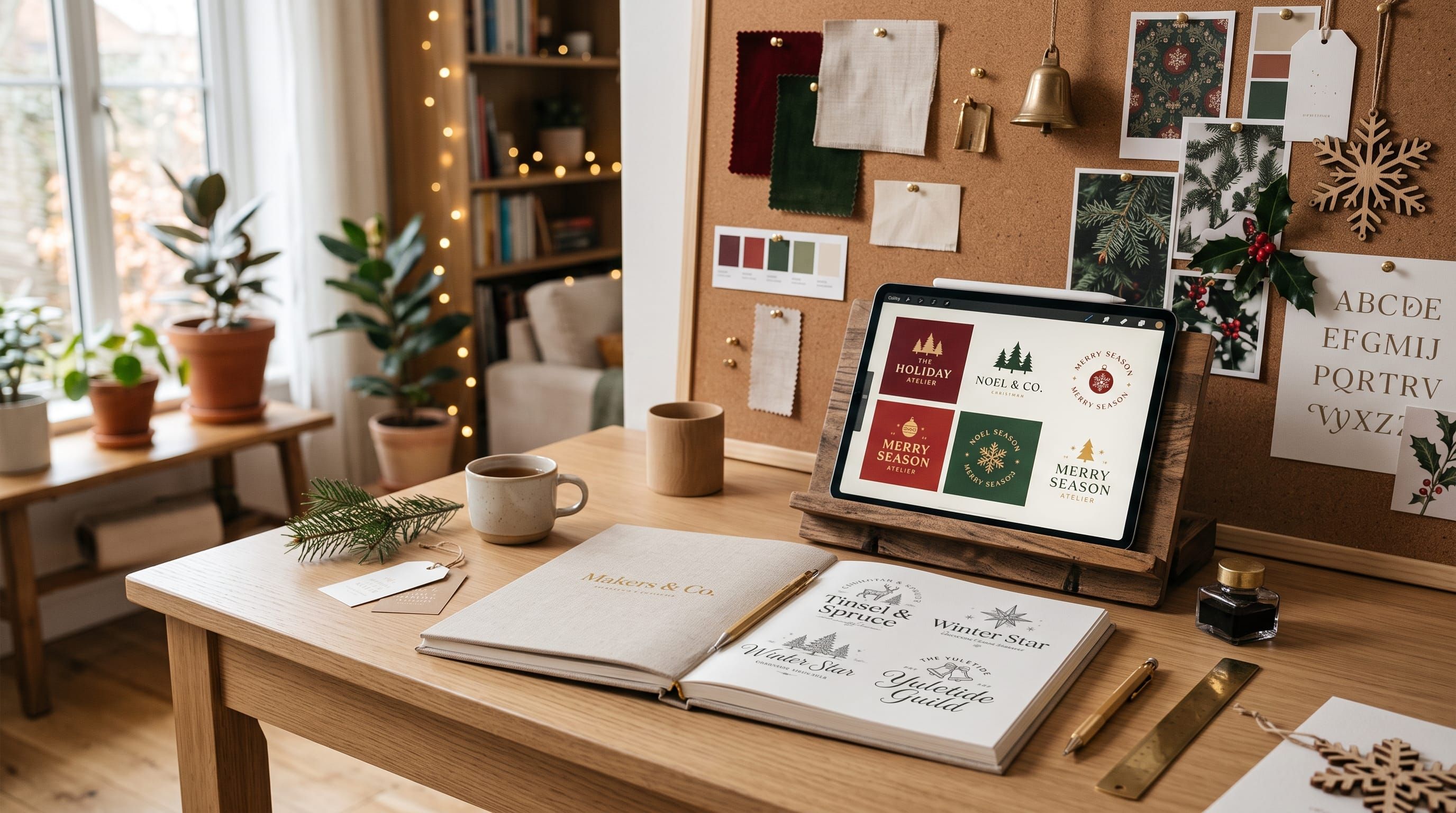
Christmas Logo Design Examples That Inspire Better Branding
A memorable Christmas logo design can instantly capture the warmth, excitement, and festive spirit of the holiday season. Whether you’re refreshing an existing brand, launching a seasonal product, or creating a limited-time holiday campaign, a thoughtfully designed logo helps businesses stand out in one of the busiest shopping periods of the year.
The best Christmas logo design combines recognizable holiday elements with strong branding principles. Instead of completely replacing a company’s identity, successful seasonal logos enhance existing brand recognition through festive colors, seasonal icons, elegant typography, and balanced composition.
This guide explores inspiring Christmas logo design ideas, typography recommendations from DM Letter Studio, practical branding tips, and creative tools that help designers produce impactful holiday identities.
Why Christmas Logo Design Matters
Holiday branding creates emotional connections.
An effective Christmas logo design helps brands:
• Increase seasonal recognition
• Strengthen holiday campaigns
• Improve customer engagement
• Build festive brand experiences
• Support product promotions
• Enhance social media marketing
• Create memorable visual identities
Small seasonal updates can make a significant marketing impact.
Christmas Logo Design Styles for Different Brands
Different businesses require different visual approaches.
Minimal Christmas Logo Design
Minimal logos focus on:
• Simple holiday icons
• Clean typography
• Limited color palettes
• Modern layouts
This style works well for technology companies, luxury retailers, and corporate brands.
Vintage Christmas Logo Design
Vintage-inspired Christmas logo design often includes:
• Retro lettering
• Classic ornaments
• Distressed textures
• Traditional holiday colors
Perfect for cafés, bakeries, artisan brands, and holiday markets.
Luxury Christmas Logo Design
Luxury branding typically features:
• Gold accents
• Deep green
• Burgundy
• Elegant typography
• Minimal decorative elements
Premium brands benefit from refined seasonal details.
Christmas Logo Design Elements That Work
Strong holiday logos rely on recognizable symbols.
Seasonal Icons
Popular elements include:
• Snowflakes
• Pine trees
• Stars
• Gift boxes
• Holly leaves
• Bells
• Candy canes
• Ornaments
Use icons sparingly to maintain a clean logo.
Festive Color Palettes
Popular combinations include:
• Forest Green + Gold
• Burgundy + Cream
• Red + White
• Navy + Silver
• Emerald + Champagne
Choose colors that complement your existing brand identity.
Christmas Logo Design Typography Tips
Typography communicates personality.
Handwritten Script Logos
Script lettering creates:
• Warmth
• Elegance
• Personalization
Ideal for boutiques, gift shops, bakeries, and handmade products.
Serif Logo Typography
Classic serif fonts communicate:
• Heritage
• Trust
• Luxury
Excellent for premium holiday branding.
Bold Display Typography
Display fonts create:
• High visibility
• Strong headlines
• Memorable branding
Perfect for holiday promotions and retail campaigns.
Recommended DM Letter Studio Fonts for Christmas Logo Design
The right typeface strengthens every Christmas logo design.
Mistletoes
Mistletoes - Handwritten Brush Font
Mistletoes - Handwritten Brush FontView
Best for:
• Holiday boutiques
• Gift shops
• Christmas markets
• Greeting card brands
Its handwritten style creates a warm and welcoming personality.
Shadow Blush
Shadow Blush Font
Shadow Blush FontView
Perfect for:
• Luxury Christmas packaging
• Seasonal product logos
• Elegant branding
• Premium gift collections
Shadow Blush adds graceful sophistication.
Hearty Winter
Hearty WinterView
Ideal for:
• Rustic cafés
• Christmas bakeries
• Handmade craft businesses
• Holiday market vendors
Its handcrafted appearance reinforces cozy branding.
Grinch Snow
Grinch Snow Font
Recommended for:
• Children’s holiday products
• Toy stores
• Seasonal events
• Family promotions
Bold characters remain highly visible across marketing materials.
Excellent for:
• Creative brands
• Holiday social campaigns
• Lifestyle businesses
• Seasonal promotions
Its playful curves create an approachable brand personality.